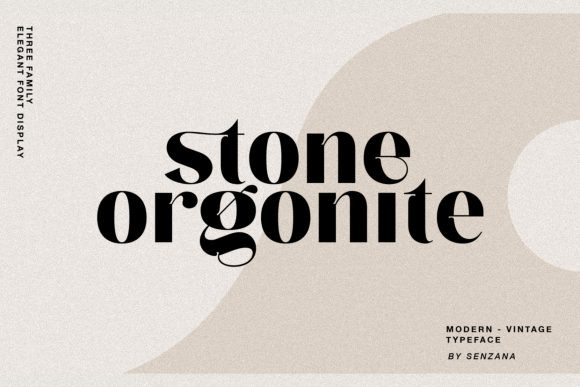
Stone Orgonite Font
Stone Orgonite is an imposing yet elegant display font. This font is neatly crafted and highly detailed. Whatever the topic, this font will be a wonderful asset to your font library, as it has the potential to enhance any creation.